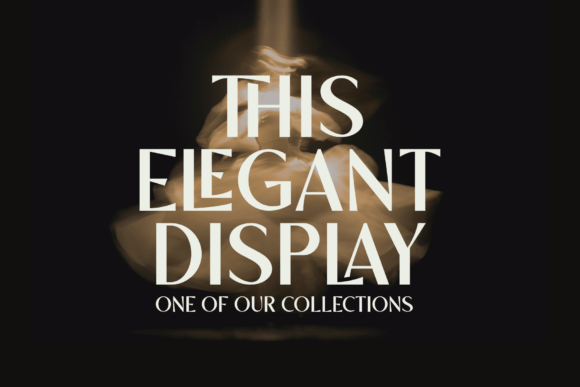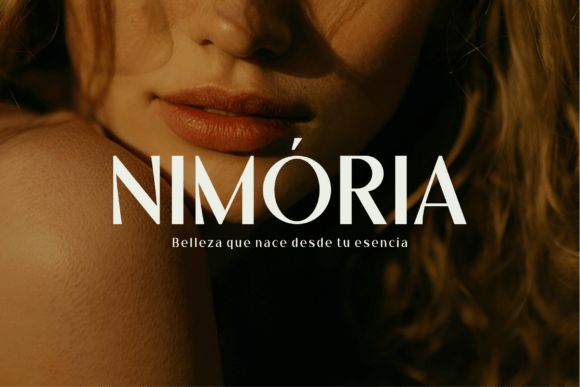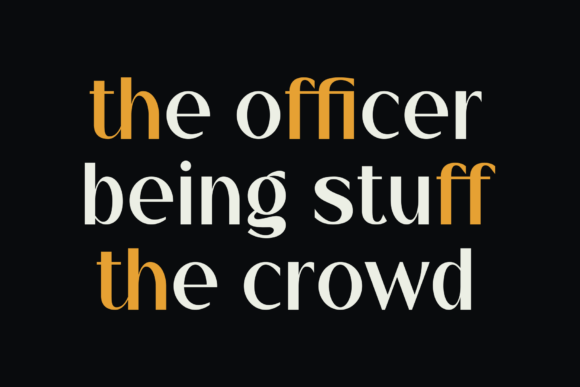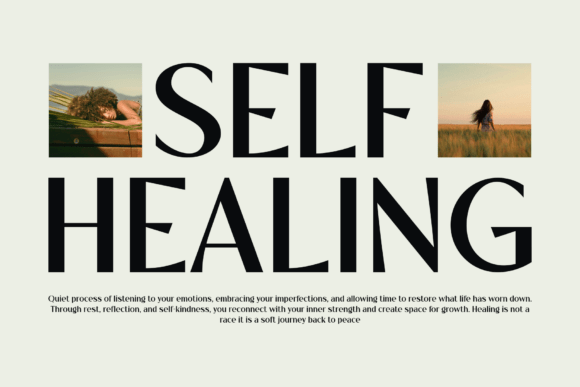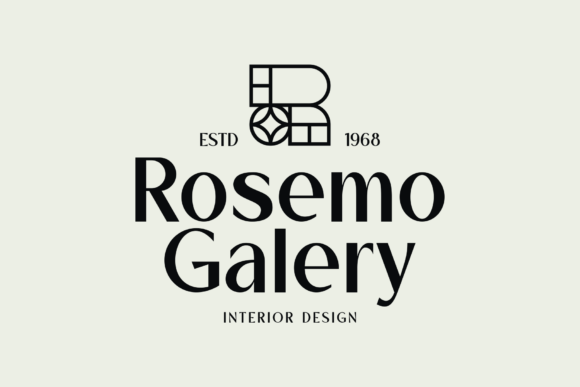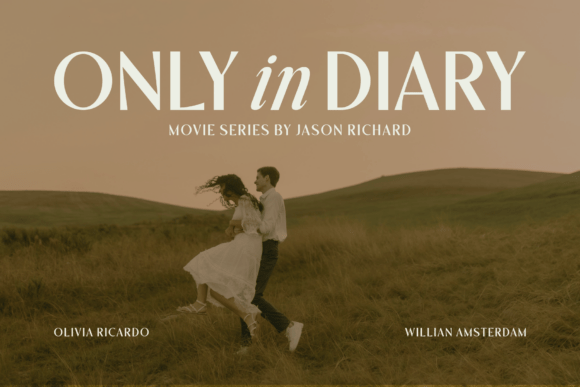
Introduction to Negen Font
Have you ever been browsing through a beautifully designed website, and suddenly, you’re stopped in your tracks by a stunning typography choice? That’s exactly what happened to me when I stumbled upon a project that used the Negen Font. The combination of sharp geometric precision and elegant curves immediately caught my attention, and I knew I had to learn more about this incredible design resource.
As a designer, I can attest to the value of having access to high-quality fonts that can elevate our creative projects to the next level. The Negen Font is a game-changer, offering a unique blend of modernity and timelessness that’s perfect for branding, editorial layouts, and high-end visual identities. With its clean edges, subtle ornamental touches, and beautifully designed ligatures, this font is a must-have for any designer looking to add a touch of sophistication to their work.
Negen Font
- High-quality, professional font suitable for creative projects
- Unique, creative style that adds a touch of sophistication to any design project
Honest Review: Negen Font
I recently had the chance to work with the Negen Font on a creative project and I must say, it’s been a game-changer. This font is a high-quality design resource that’s perfect for any project that requires a unique touch.
- What works well: ✨ The Negen Font is incredibly versatile and can be used for a wide range of design projects. Its modern and sleek design makes it perfect for anything from logos to headings.
That being said, there are a few limitations to keep in mind. ⚠️ The font is not available in as many languages as I would have liked, which can be a problem for international projects. Additionally, the font is a bit on the heavier side, which can make it difficult to use on smaller designs.
Tips for Getting the Most Out of Negen Font
Negen Font is perfect for a variety of creative projects, including logos, graphics, and presentations. It’s also great for use in social media posts, blog articles, and other digital content.